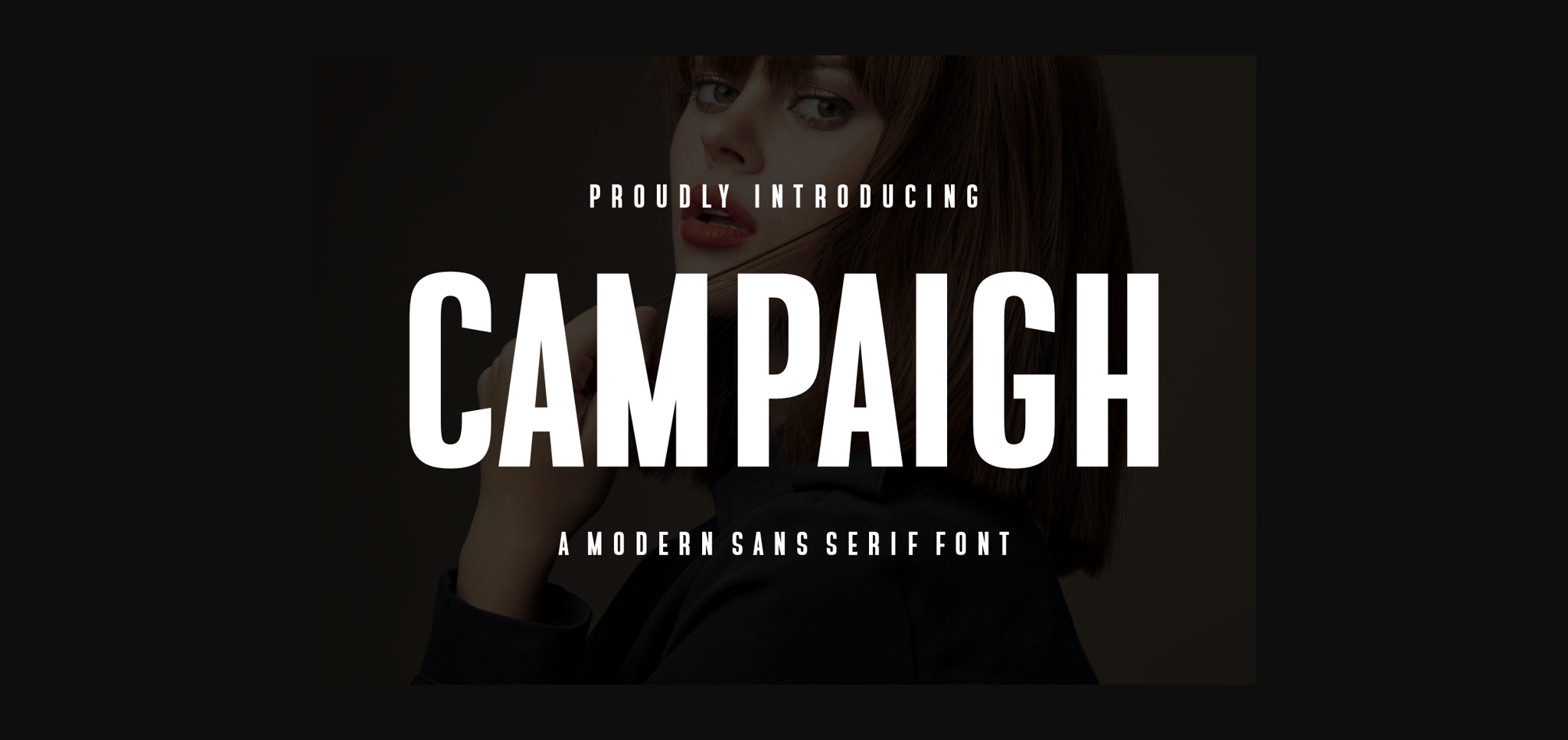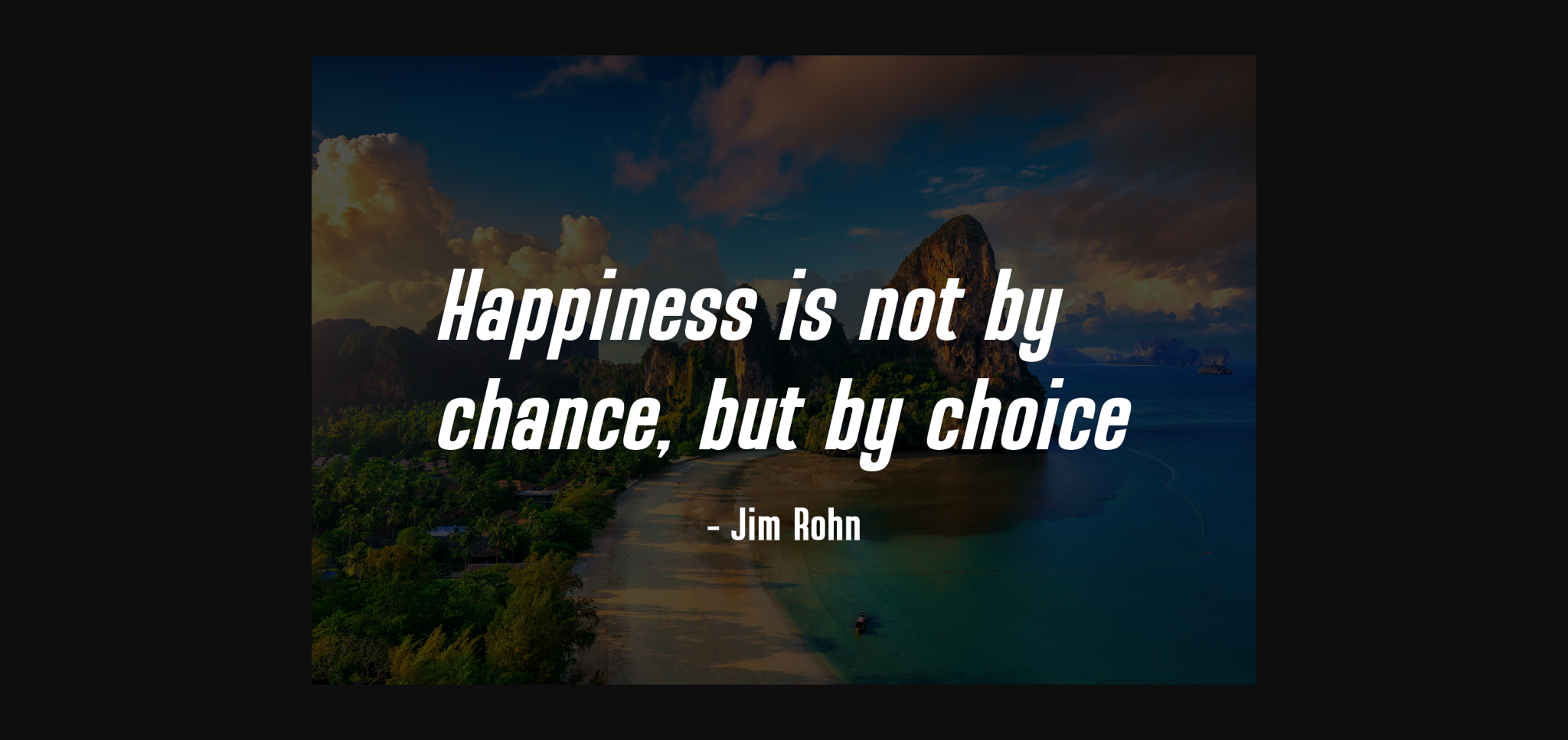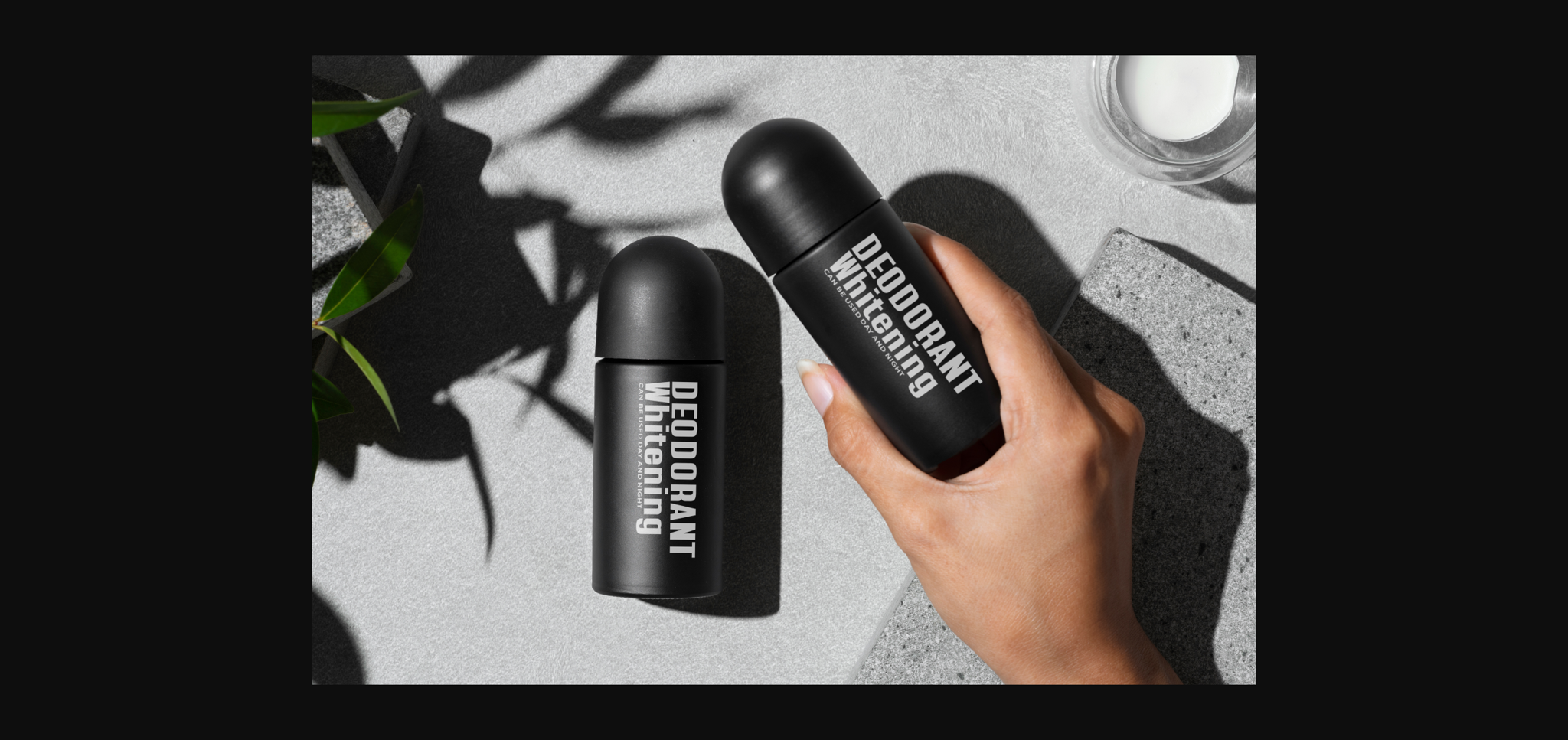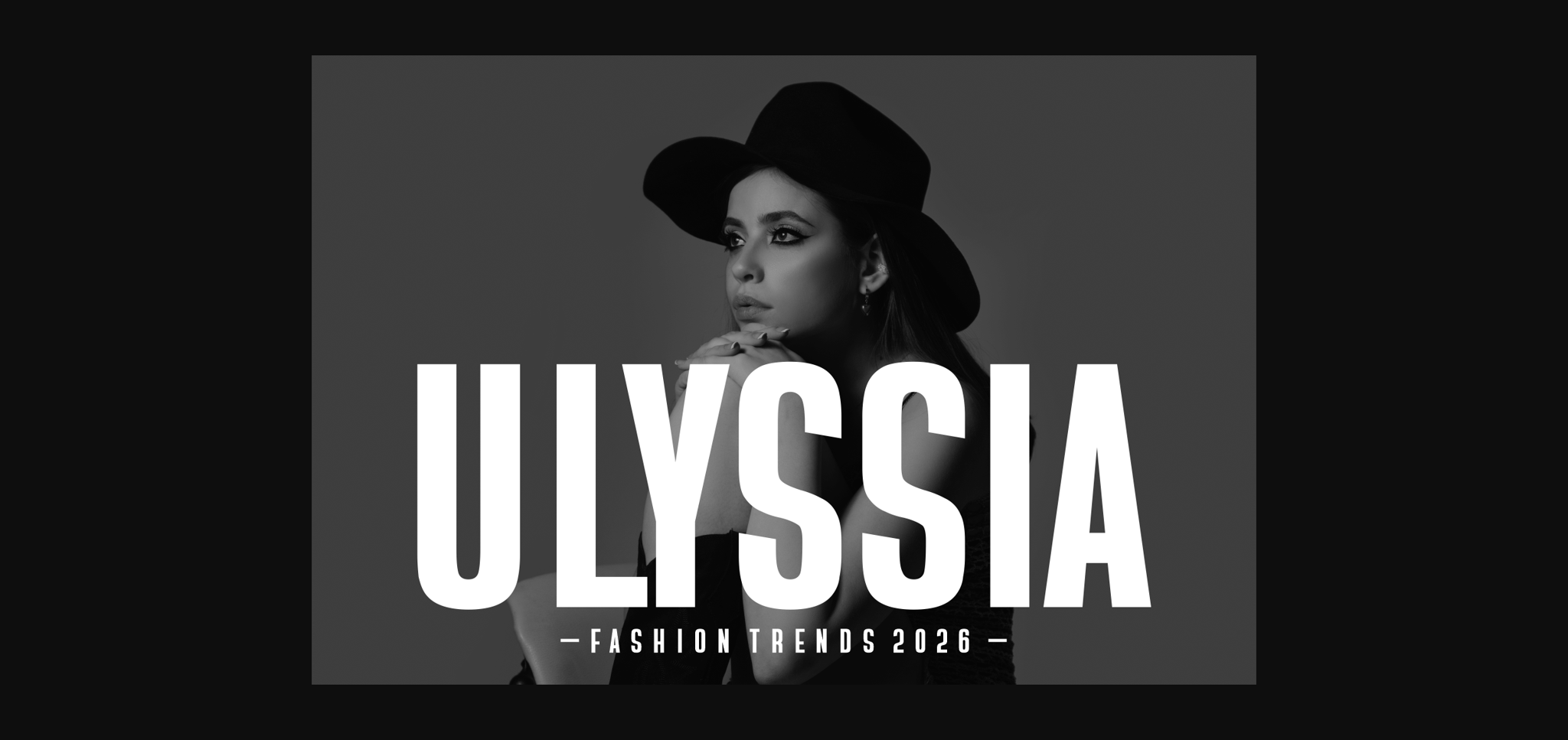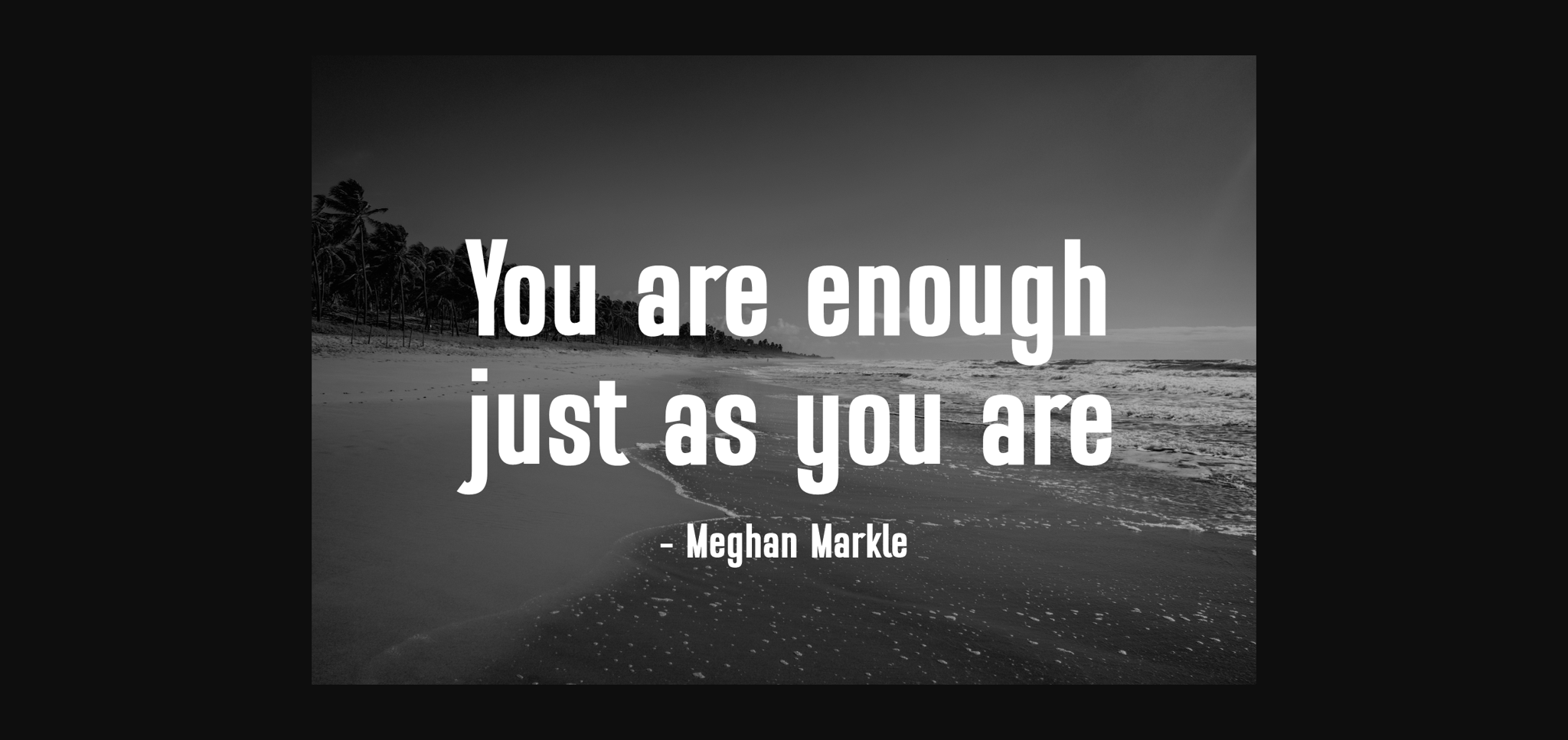
Campaigh Font
About Campaigh Font
Campaigh is a beautiful sans-serif font. This font is great for logos, badges, clothing, posters, and more. At the same time, it’s perfect for creating signature logos and watermarks for a photography studio or wedding invitation.